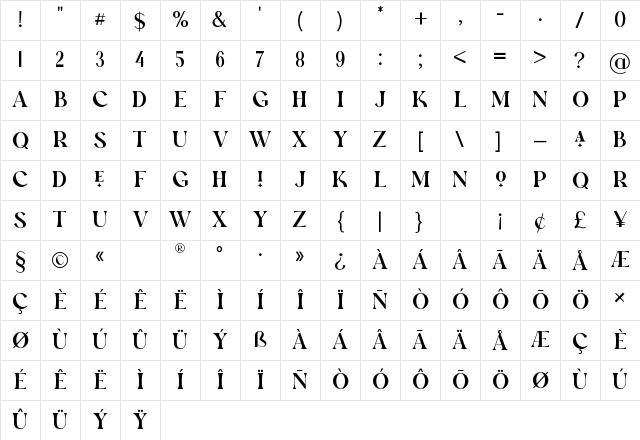
Complete XanderSwordfish Regular glyph index. Displaying only characters natively supported by XanderSwordfish Regular font.
XanderSwordfish is a composed and adaptable typeface that performs quietly and consistently across a wide range of design contexts.